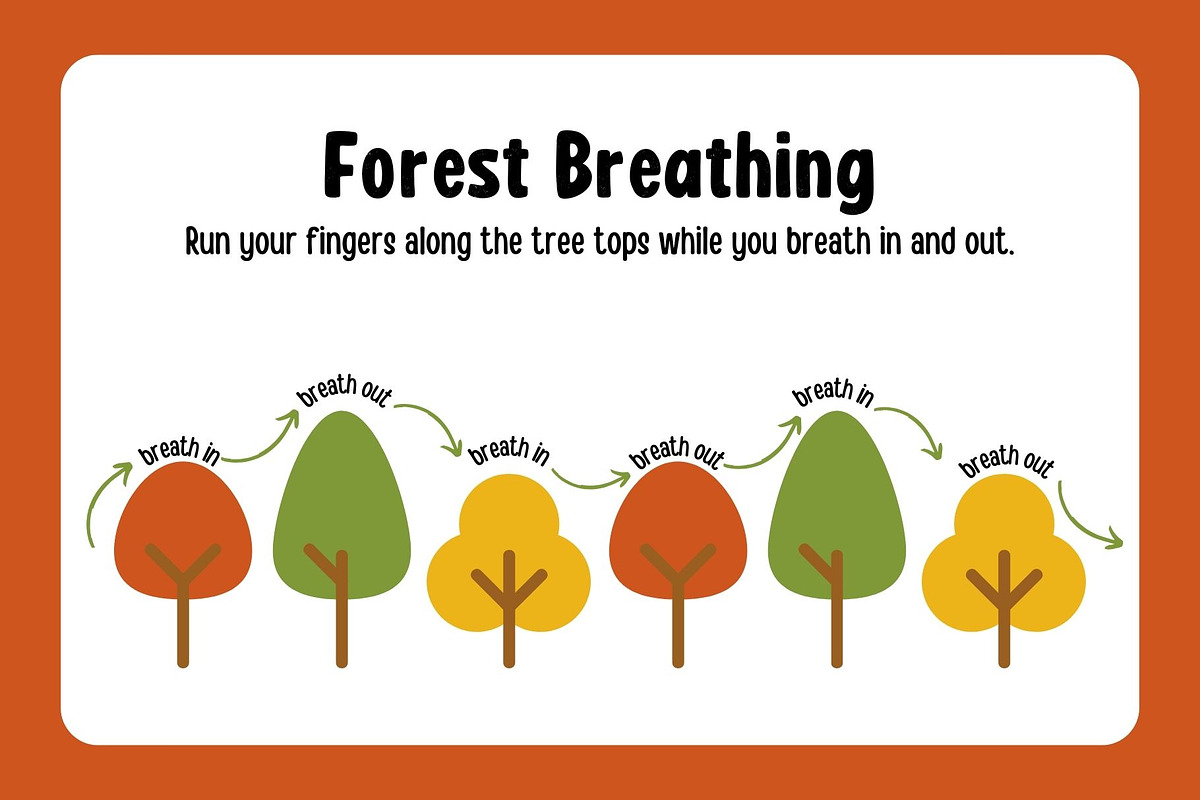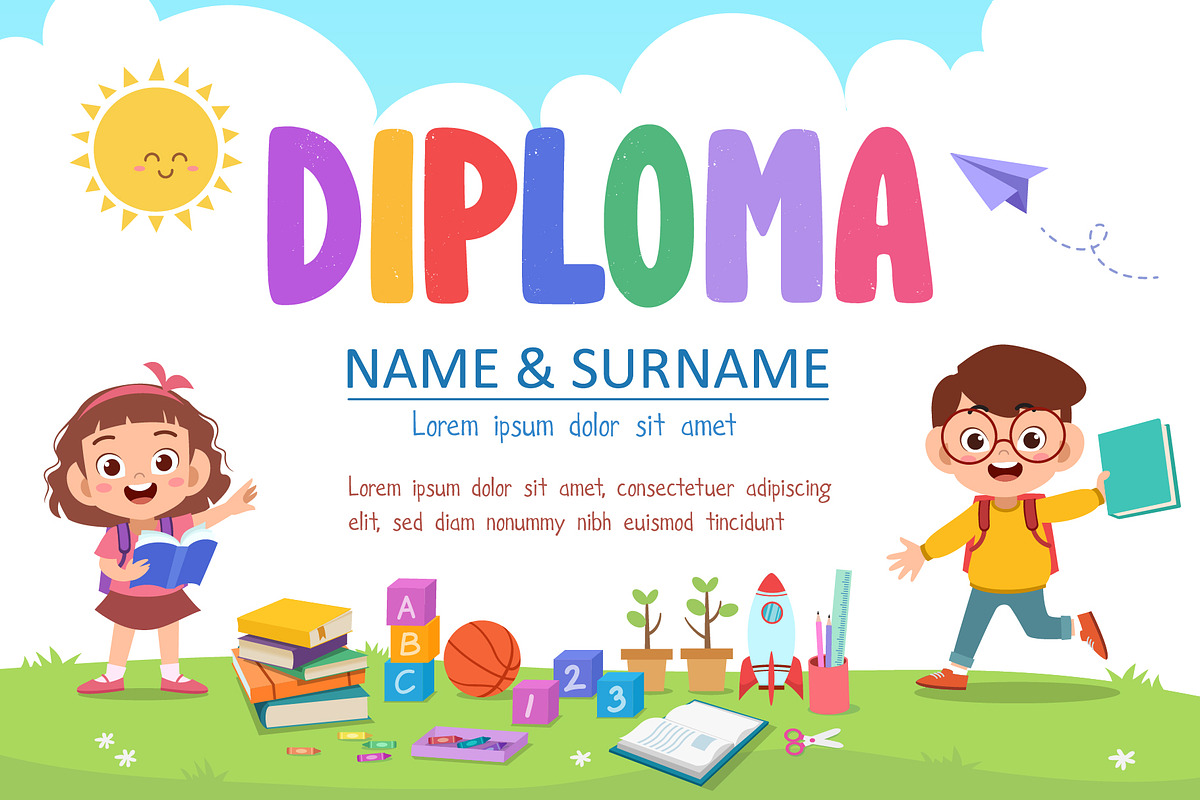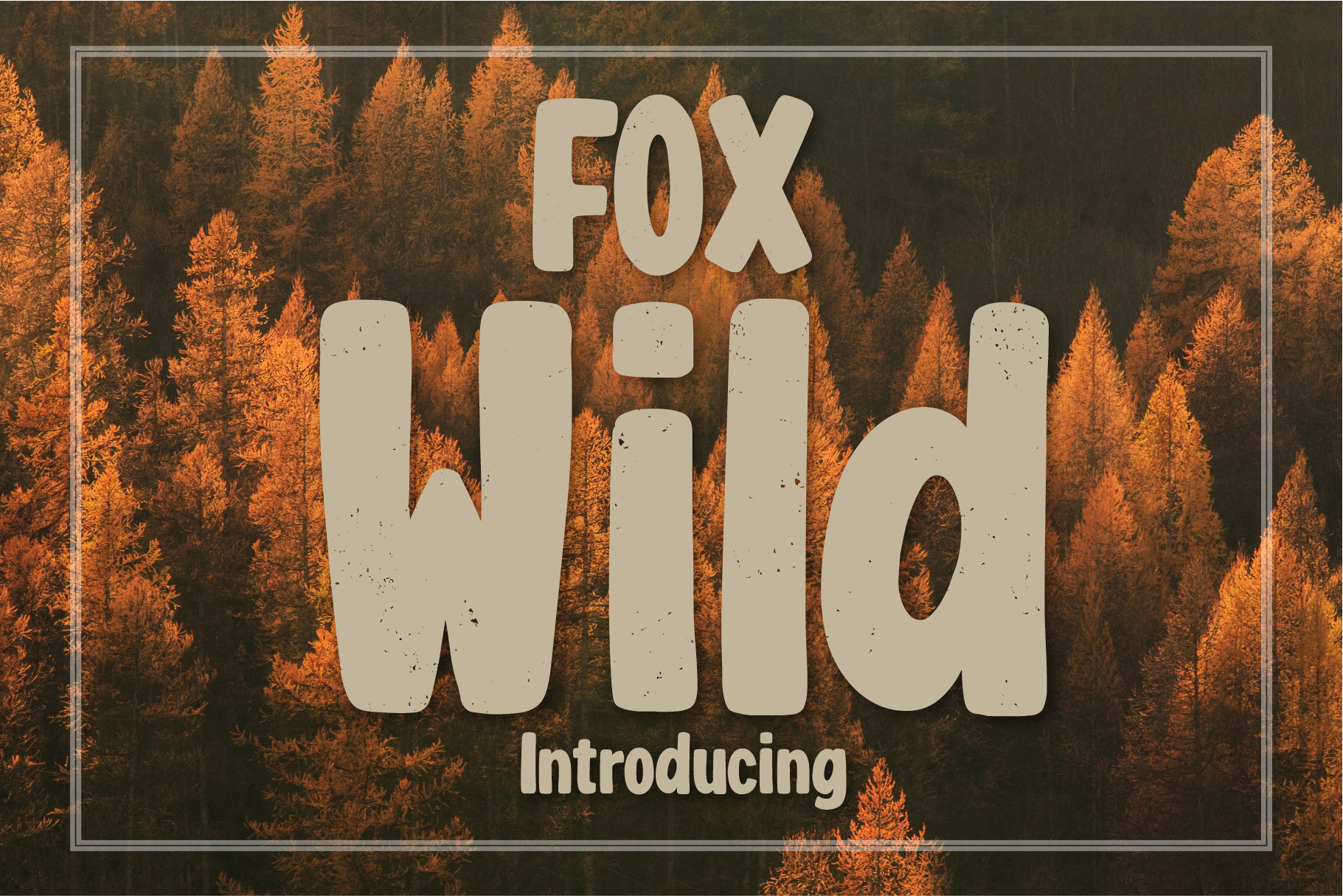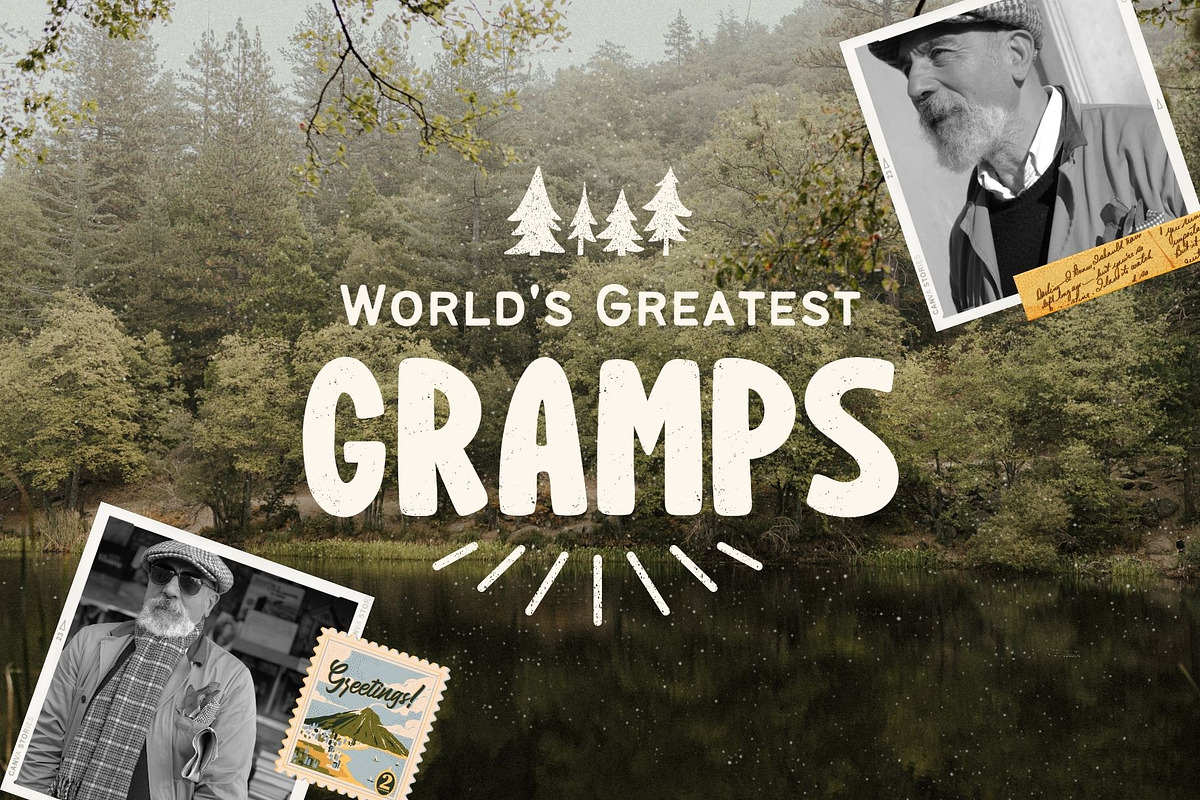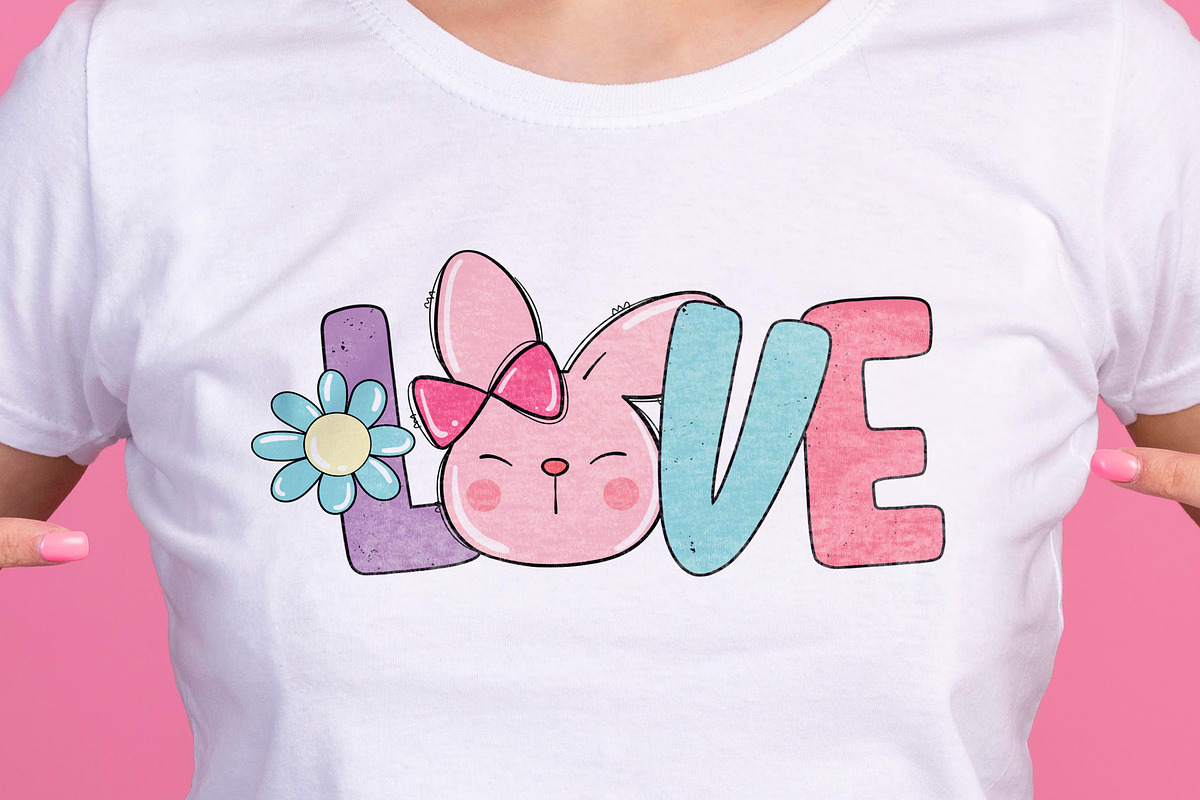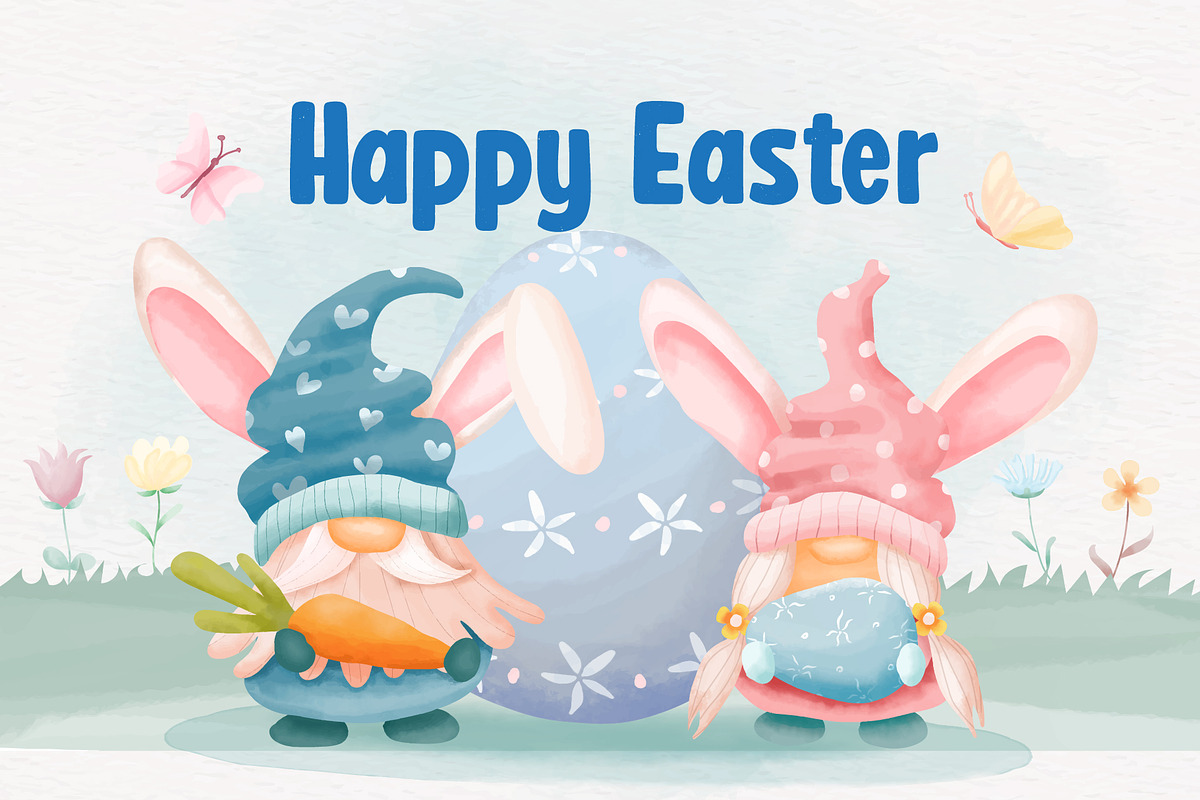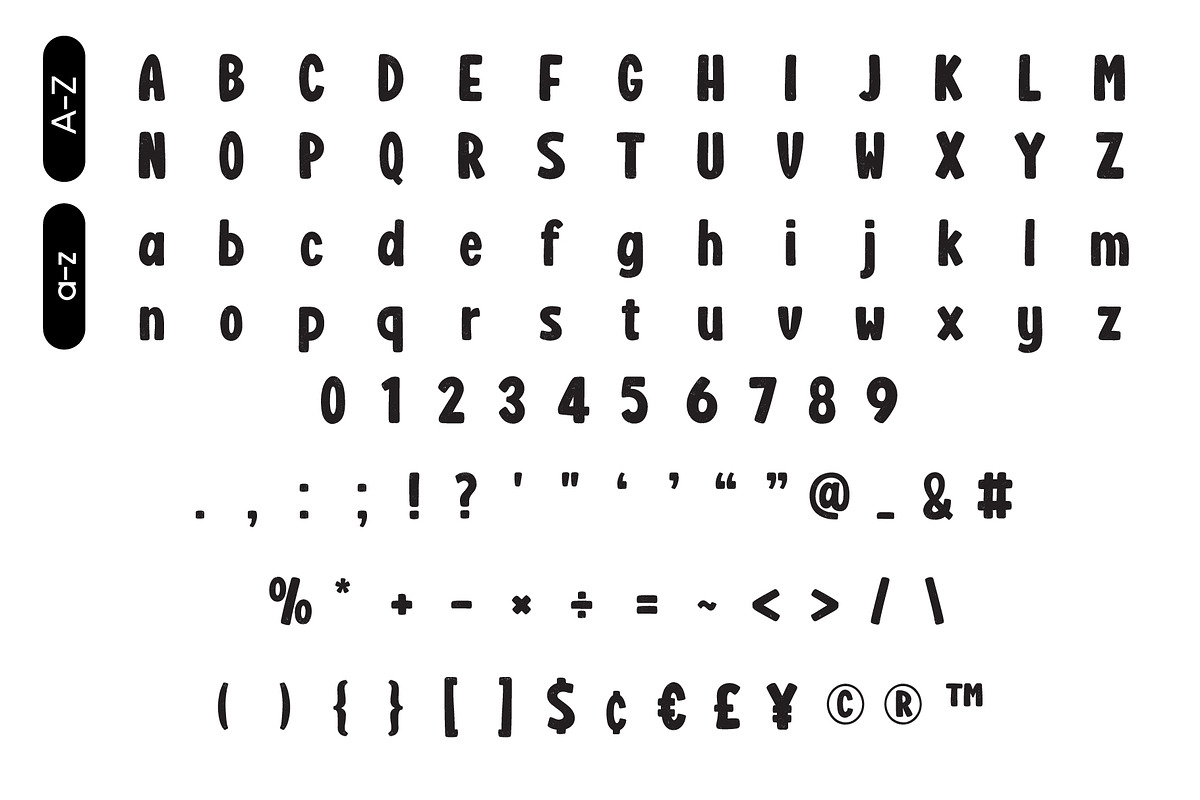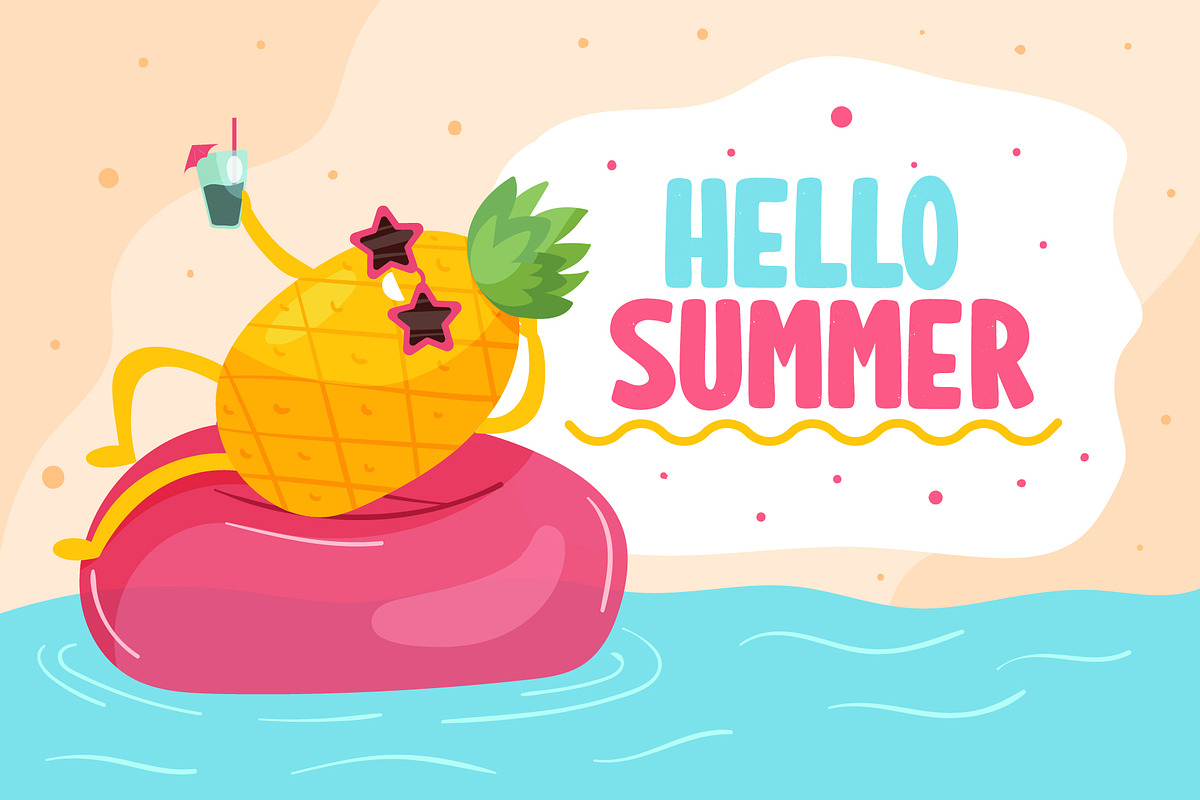
Fox Wild Font
Fox Wild is a lively and playful display font that is perfect for adding a touch of fun and cheer to any design project. Crafted with a focus on creativity and originality, this font features bold and expressive characters that are guaranteed to make your designs stand out.
Another really great font! My only gripe with it is the gaps in between the words when you use this font to make sentences or phrases. I deem the gap in between the words quite spacy compared to their previous Fox font I bought, but I still absolutely adore the style of this one.